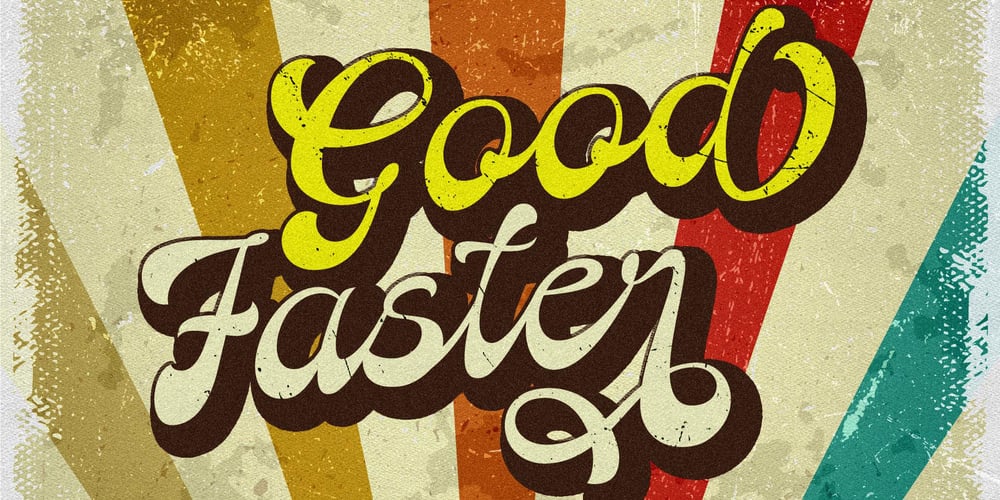
Good Faster Font Family was designed by Måns Grebäck and published by Mans Greback. Good Faster contains 4 styles and family package options. Good Faster is a bold script typeface. In a quirky calligraphic style, this flowing font has a rustic look and soft lines. The Good Faster family consists of four styles:Regular, Bold, Italic and Bold Italic, complimenting each other for the greatest design possibilities.The font is built with advanced OpenType functionality and has a guaranteed top-notch quality, containing stylistic and contextual alternates, ligatures and more features; all to give you full control and customizability. It has extensive lingual support, covering all Latin-based languages, from Northern Europe to South Africa, from America to South-East Asia. It contains all characters and symbols you’ll ever need, including all punctuation and numbers.